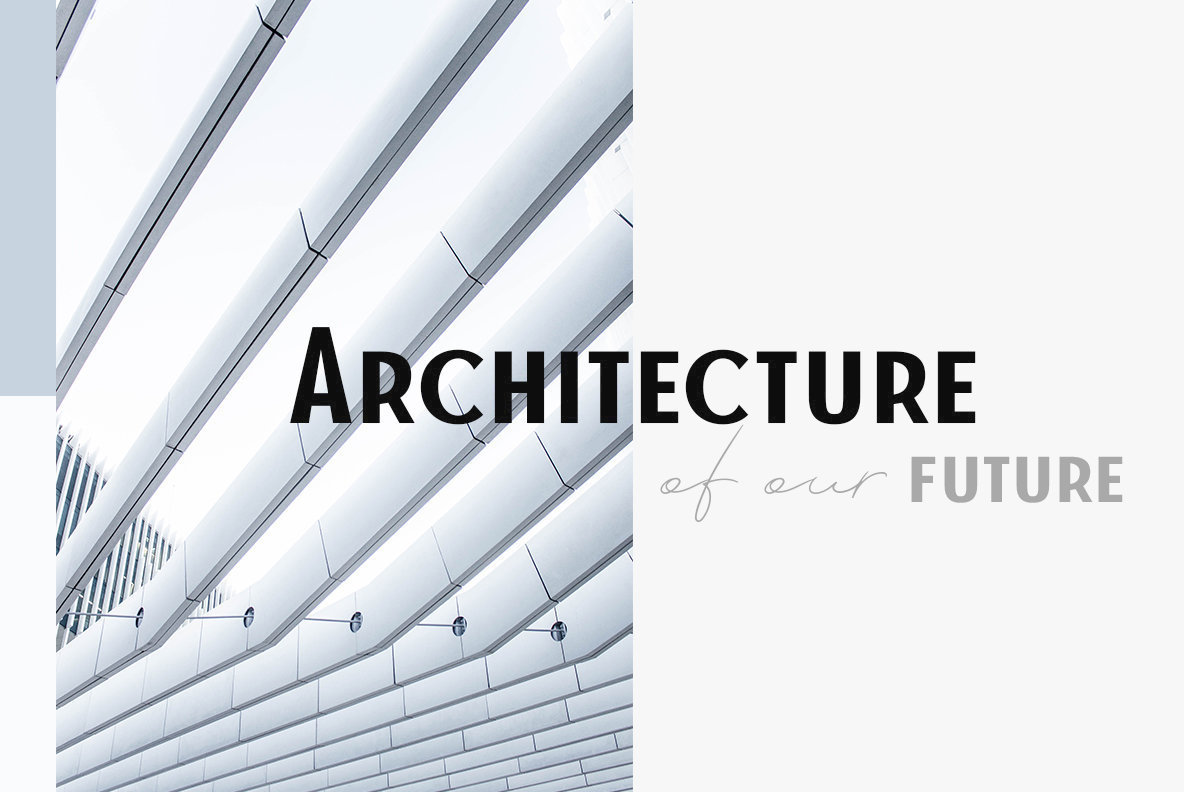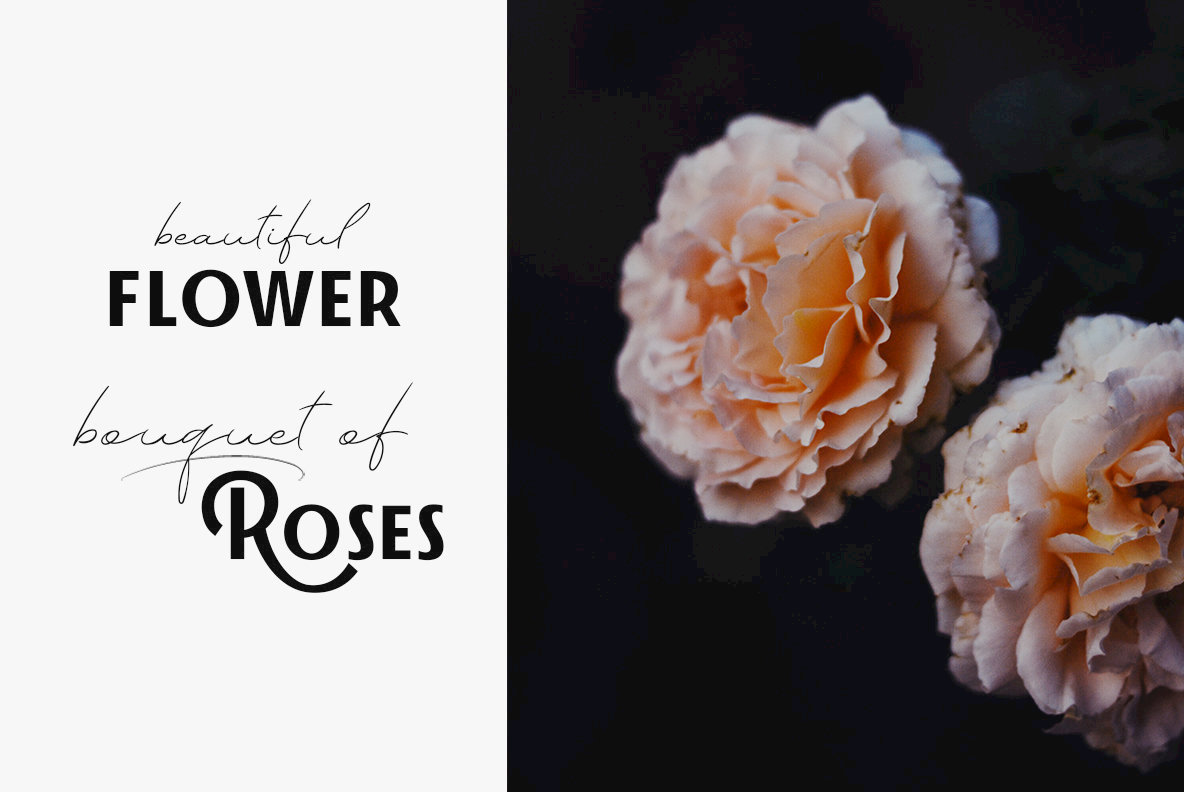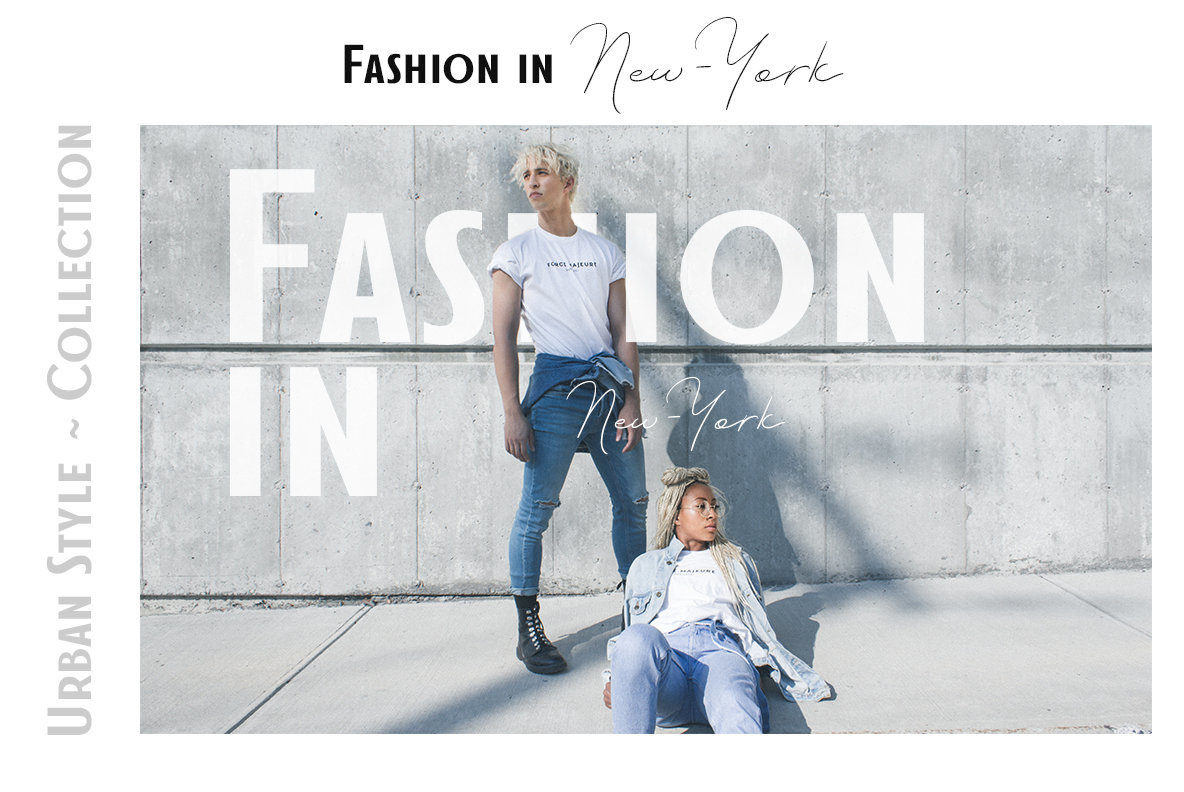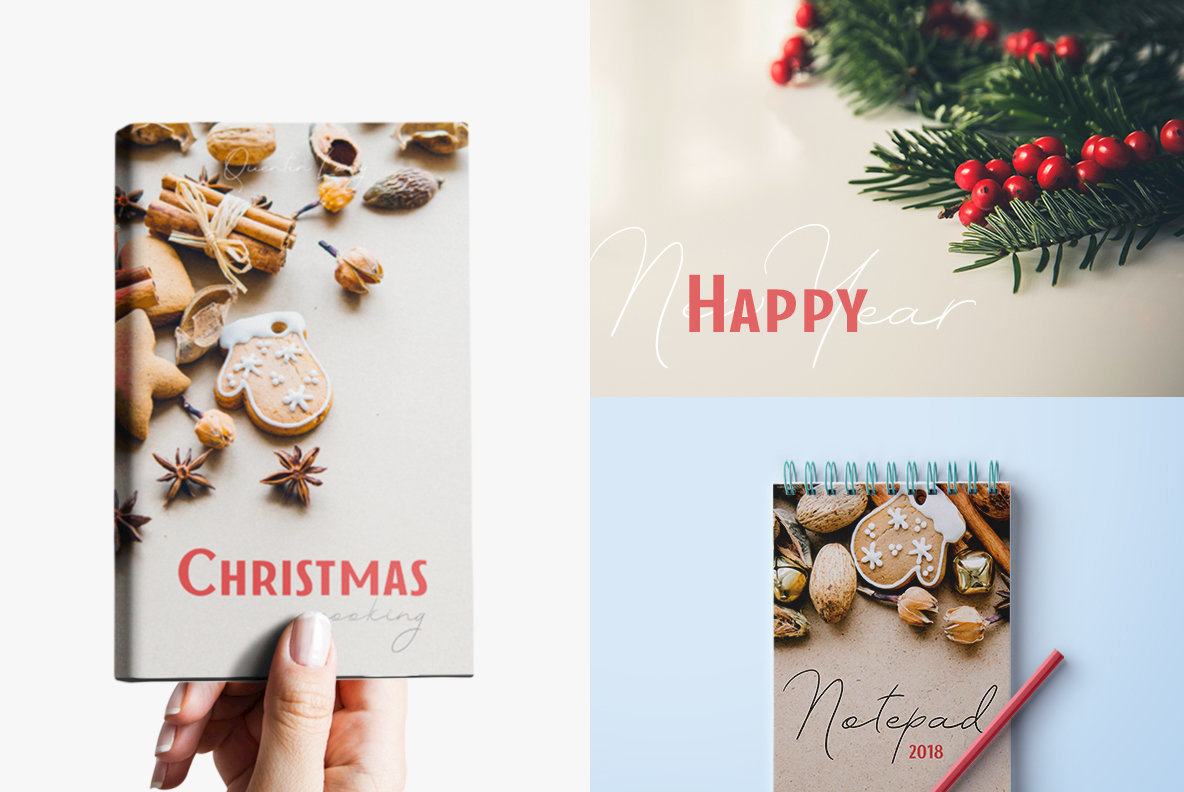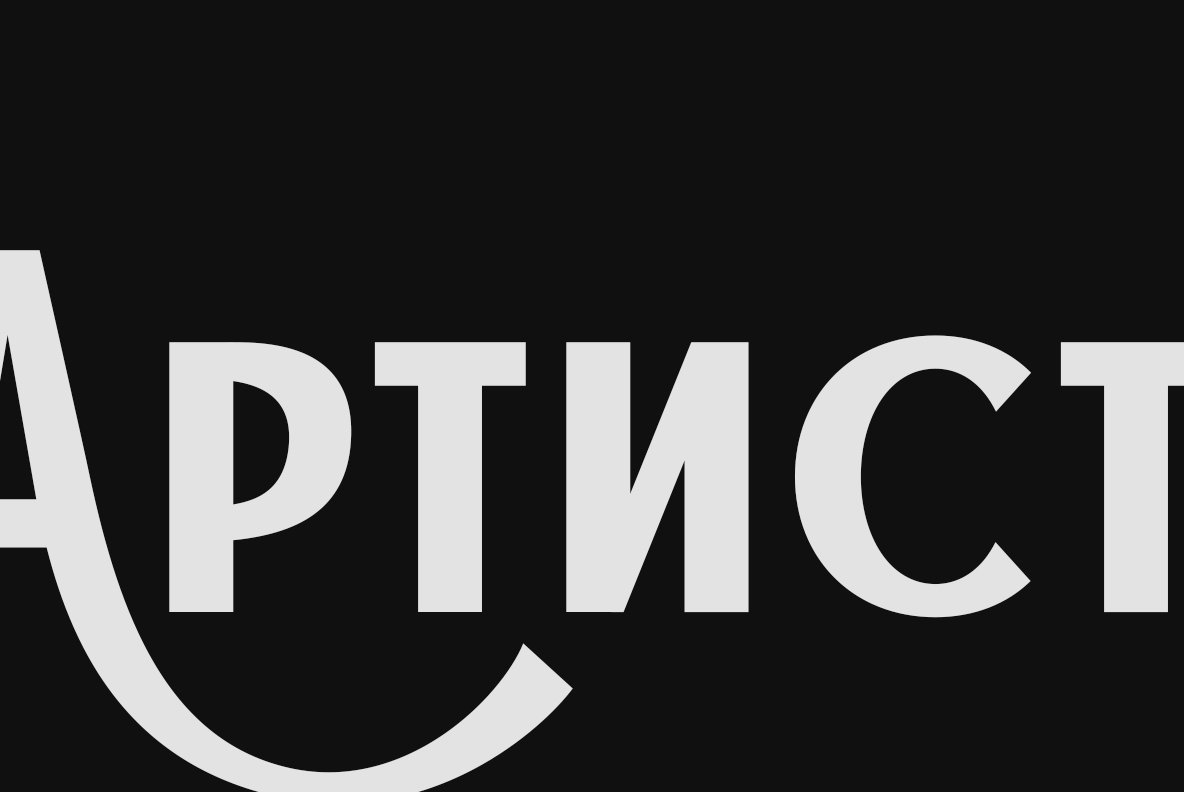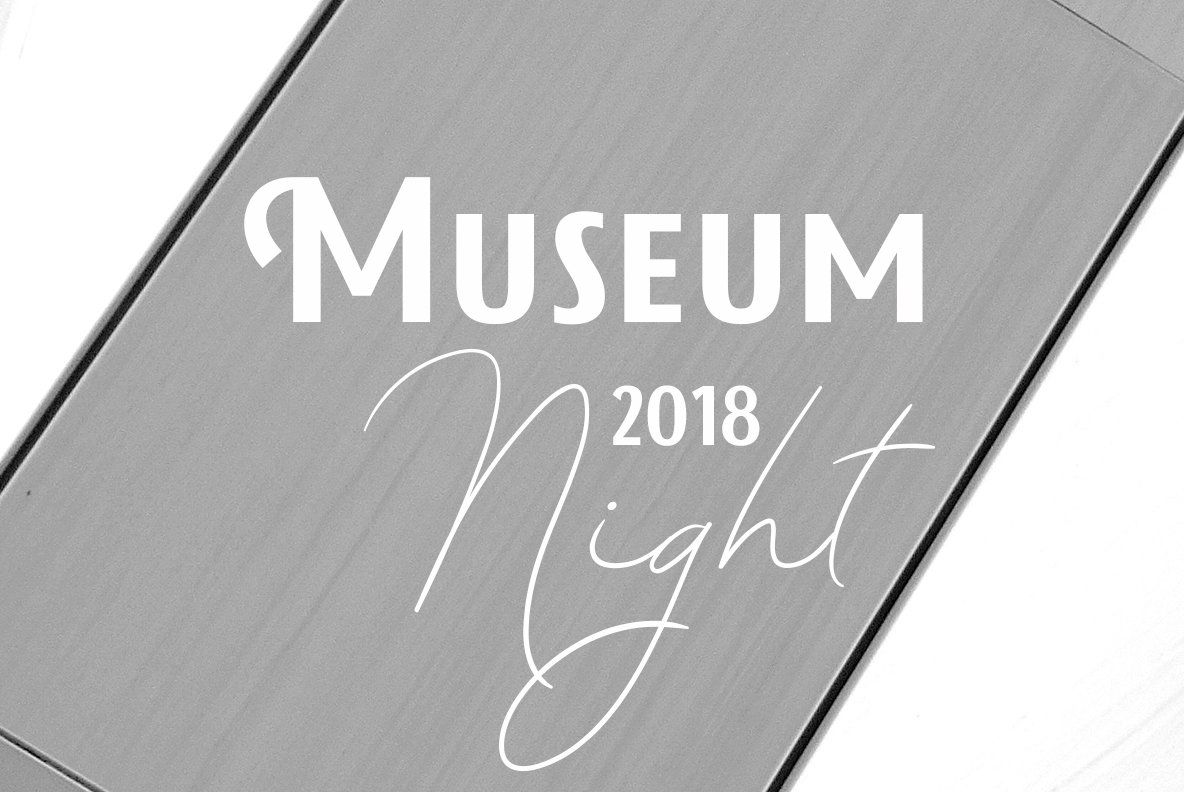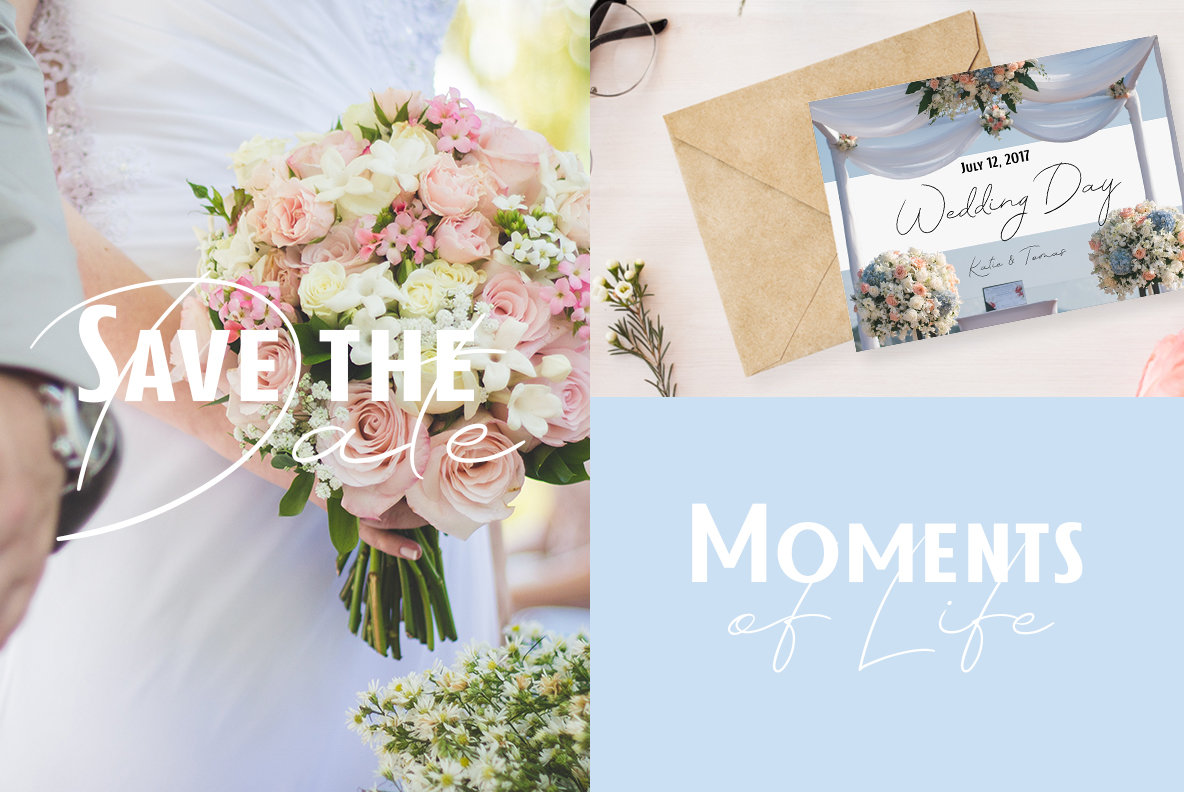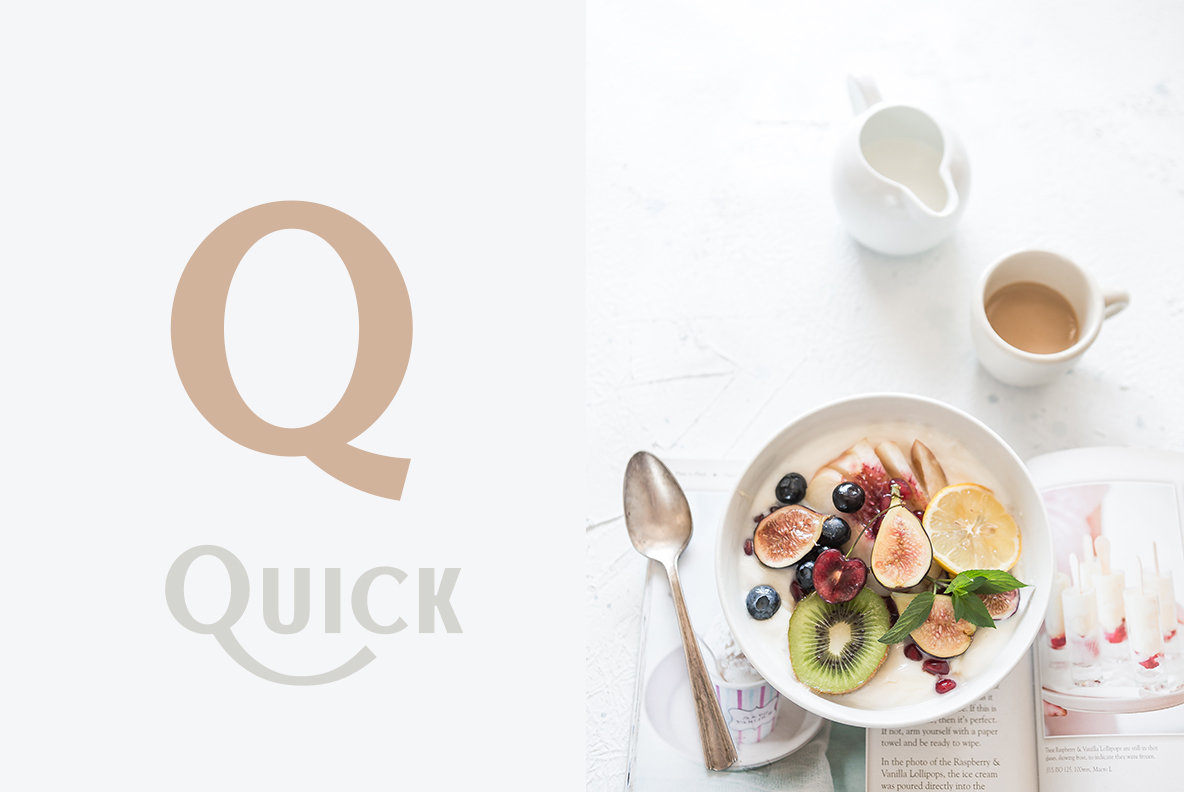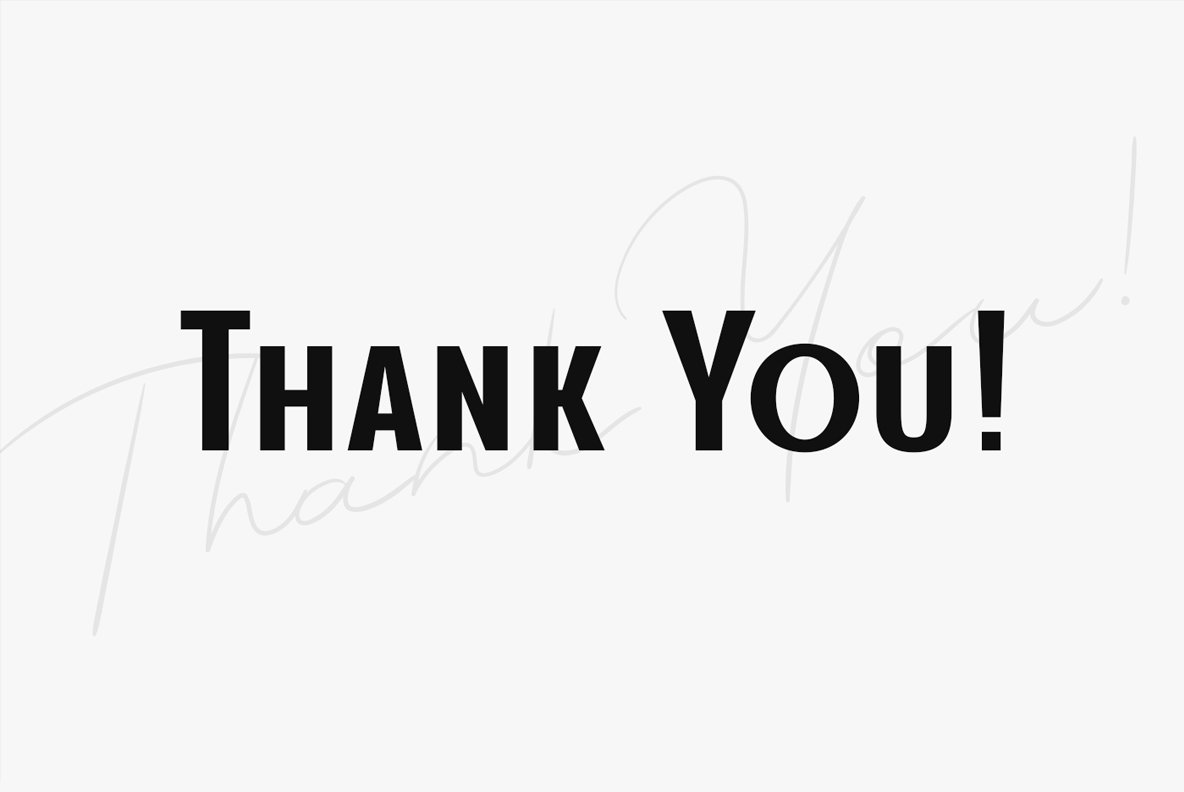
MADE TheArtist: Retro Meets Modernity
MADE TheArtist presents a unique blend of retro and modern design with its duo fonts—retro grotesk and modern script. This combination offers versatility across a spectrum of applications, from online designs to packaging, posters, and brand identities. With its distinct style, MADE TheArtist seamlessly integrates into both classic and contemporary displays, capturing attention and conveying sophistication.
• Duo Fonts – Encompasses a retro grotesk and a modern script, offering diversity in typography.
• Swash Alternates – TheArtist Sans includes stylish swash alternatives for enhanced design flexibility.